Invitation fonts can get tricky, not many realize how important it is to choose the right font for your invites, as it can give an impact to the first impression of your event. To help you out, we decided to curate a font list of the best invitation calligraphy fonts that you can utilize on formal events such as your wedding invitations!
Alex Brush Calligraphy Font
What we love about the Alex Brush font is its sophisticated yet playful character! This font will perfectly fit well in invitations, both formal and casual. The brush font also features a slight handwriting look, which gives it a warm touch. Try out this font here!
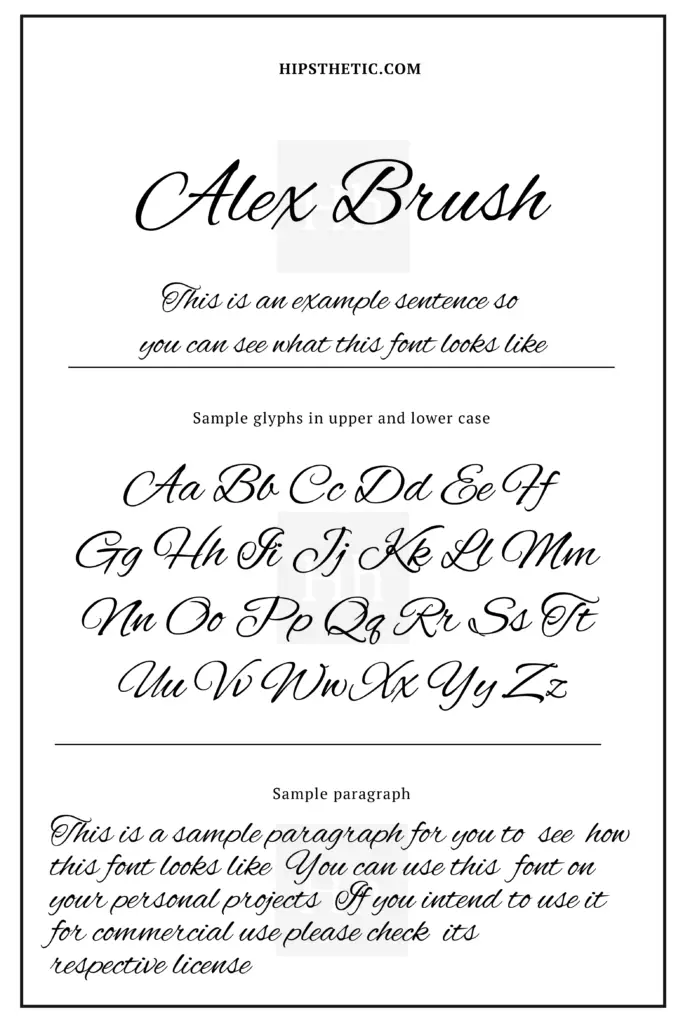
Balleria Calligraphy Font
This is the perfect font for that touch of classic elegance! The Balleria font perfectly captures the heavy and light strokes that you get from calligraphy fonts to add to that pleasing and charming aesthetic. Surely, this will make your invites stand out! Click here to download.
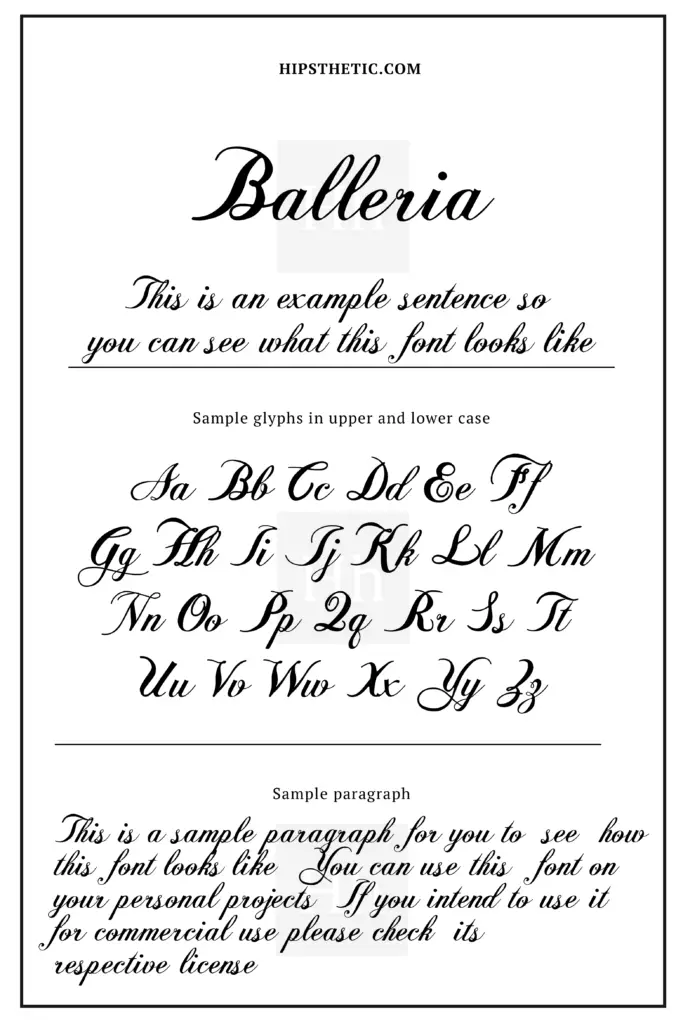
Notera Calligraphy Font
If you’re looking for something minimal yet formal, this font is for you! The Notera font captures that clean thin font vibe, that will surely work well with a minimalist invitation design. Add this font to your font library, and download it here!
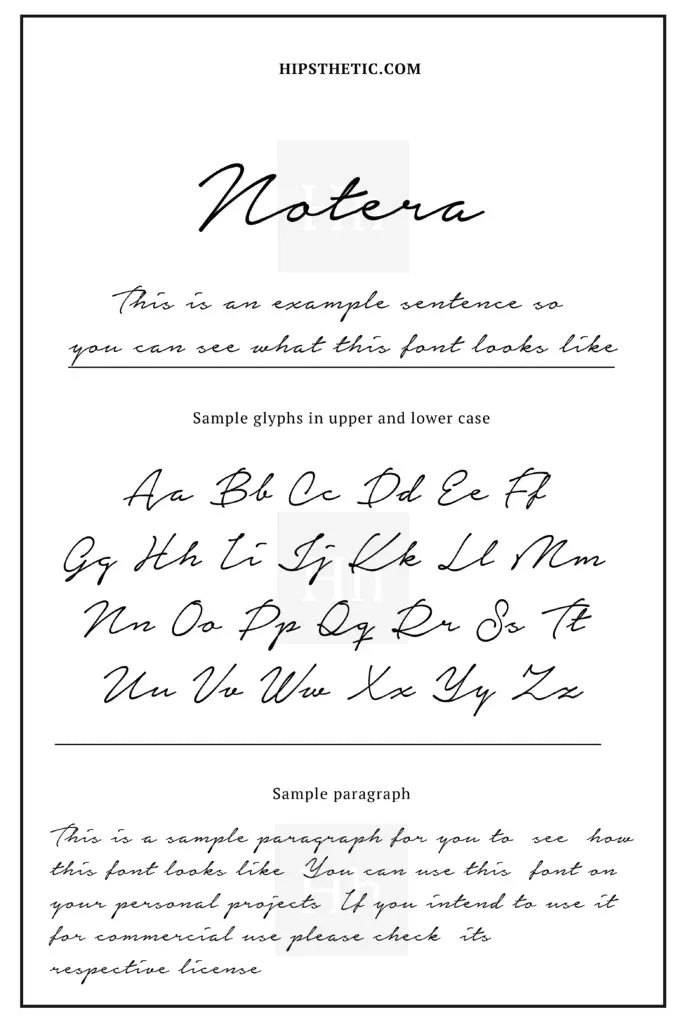
Camigata Calligraphy Font
Here’s another minimalist font with a handwriting touch. The Camigata font features a thin, cursive handwriting look. This font would be a great choice if you’re looking for something classy, formal, yet warm and homey. Truly, a great font to consider using on your invites. Click here to download it!
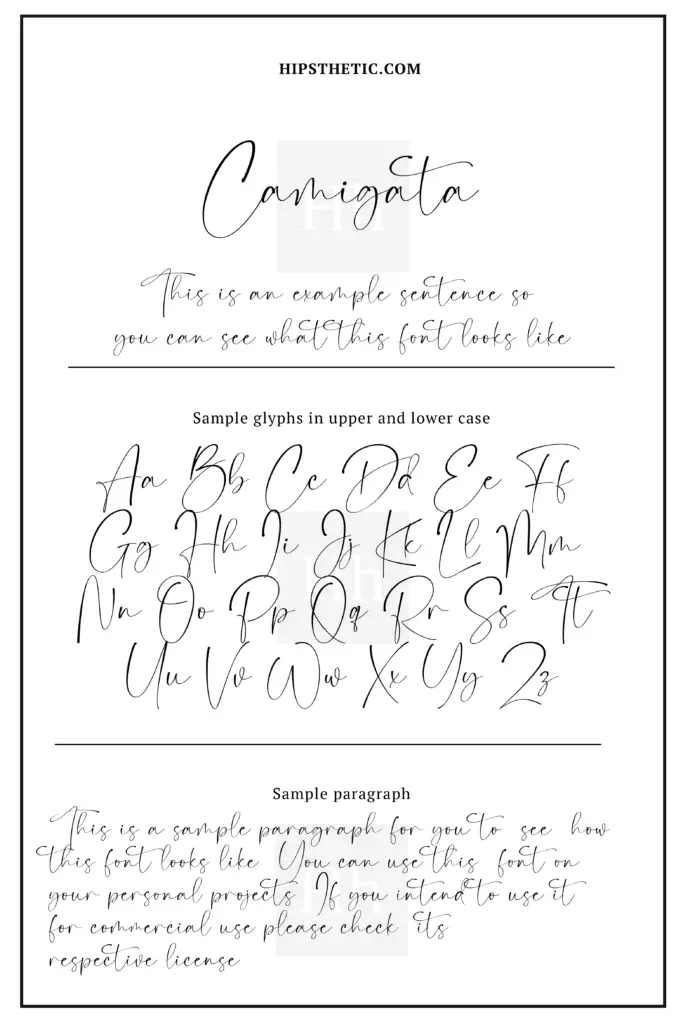
The Heart of Everything Calligraphy Font
We just adore this font so much! The Heart of Everything font captures that sweet romantic vibe that would be perfect for your wedding invites! The font features a nice cursive calligraphy font with big curves and straight edges for a tailored look. Try out and download this font here.
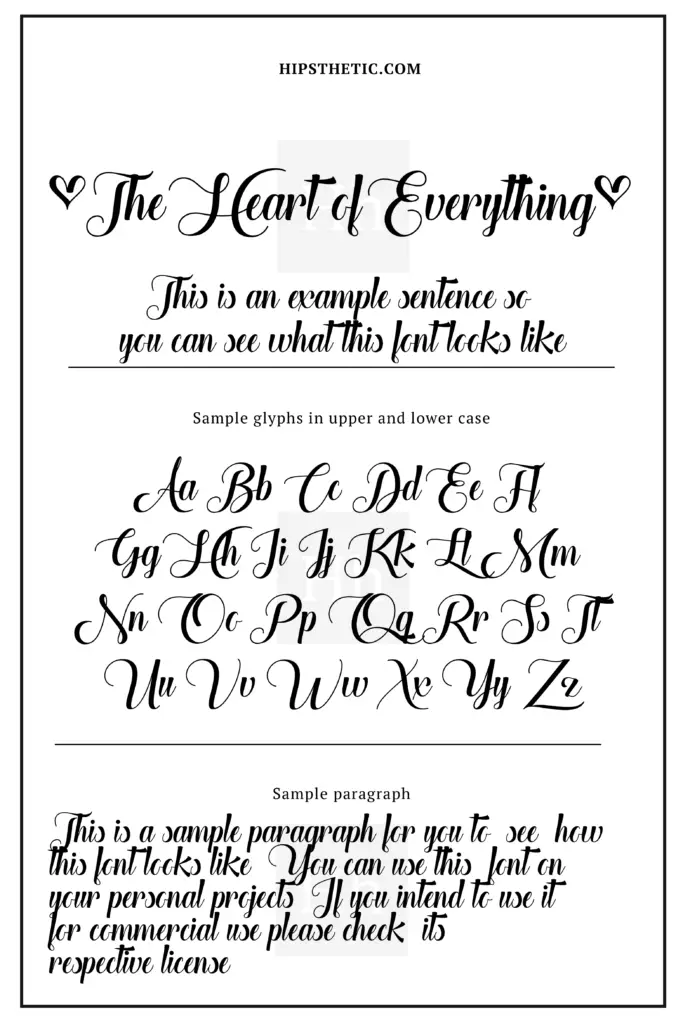
Ambar Pearl Calligraphy Font
We love how this cursive font’s overall look hints at touches of vintage classic elements. With its huge loops, small letters, and polished strokes, truly this font is a great choice for a wedding invitation. This font is a must in your font library. Download it here now!
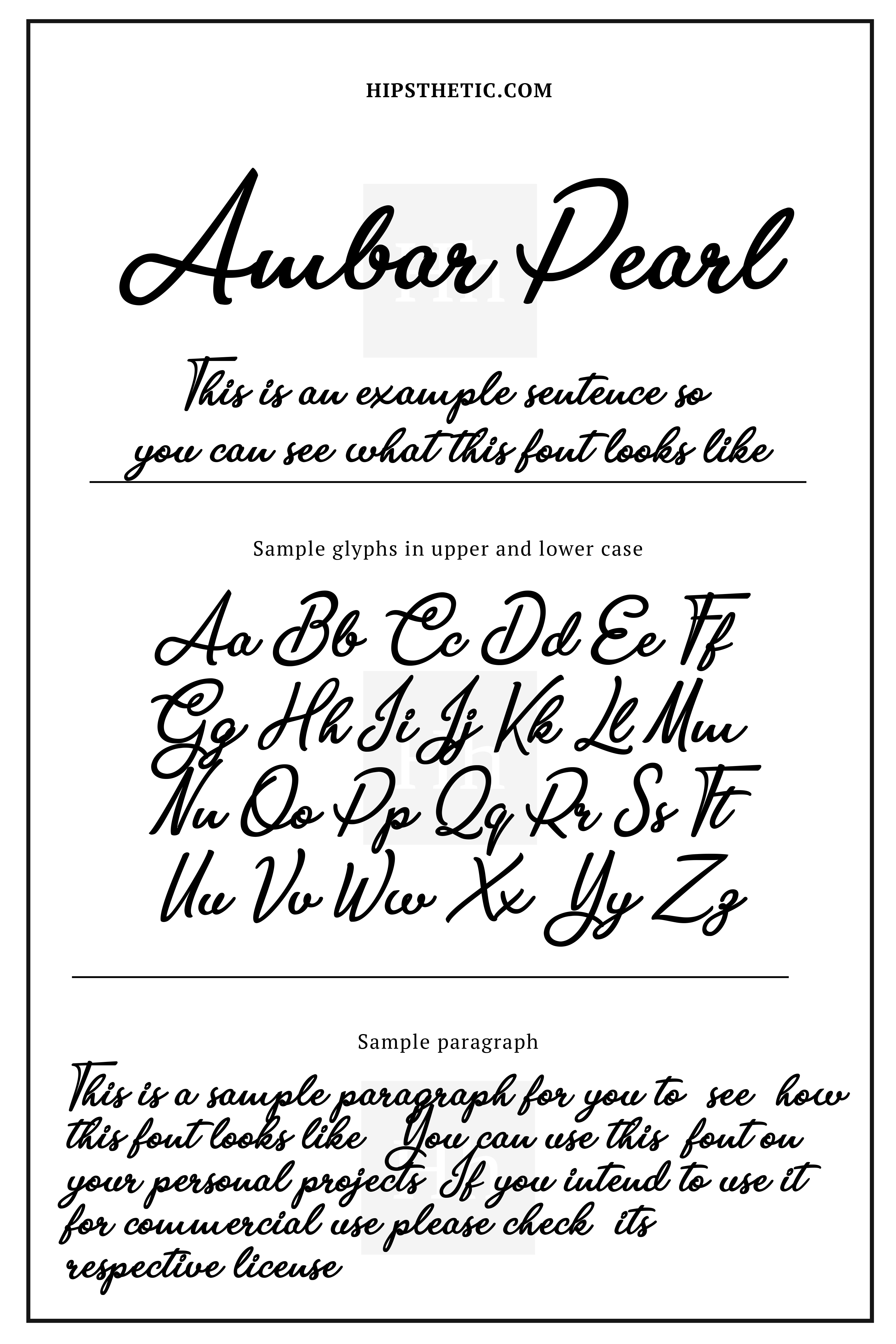
Great Vibes Calligraphy Font
Another one of those classic and sophisticated cursive calligraphy fonts that would work for formal and traditional wedding invites. This font features that bold look with a statement of elegance, truly a great choice for anyone seeking fonts for a formal event. Click here to download it!
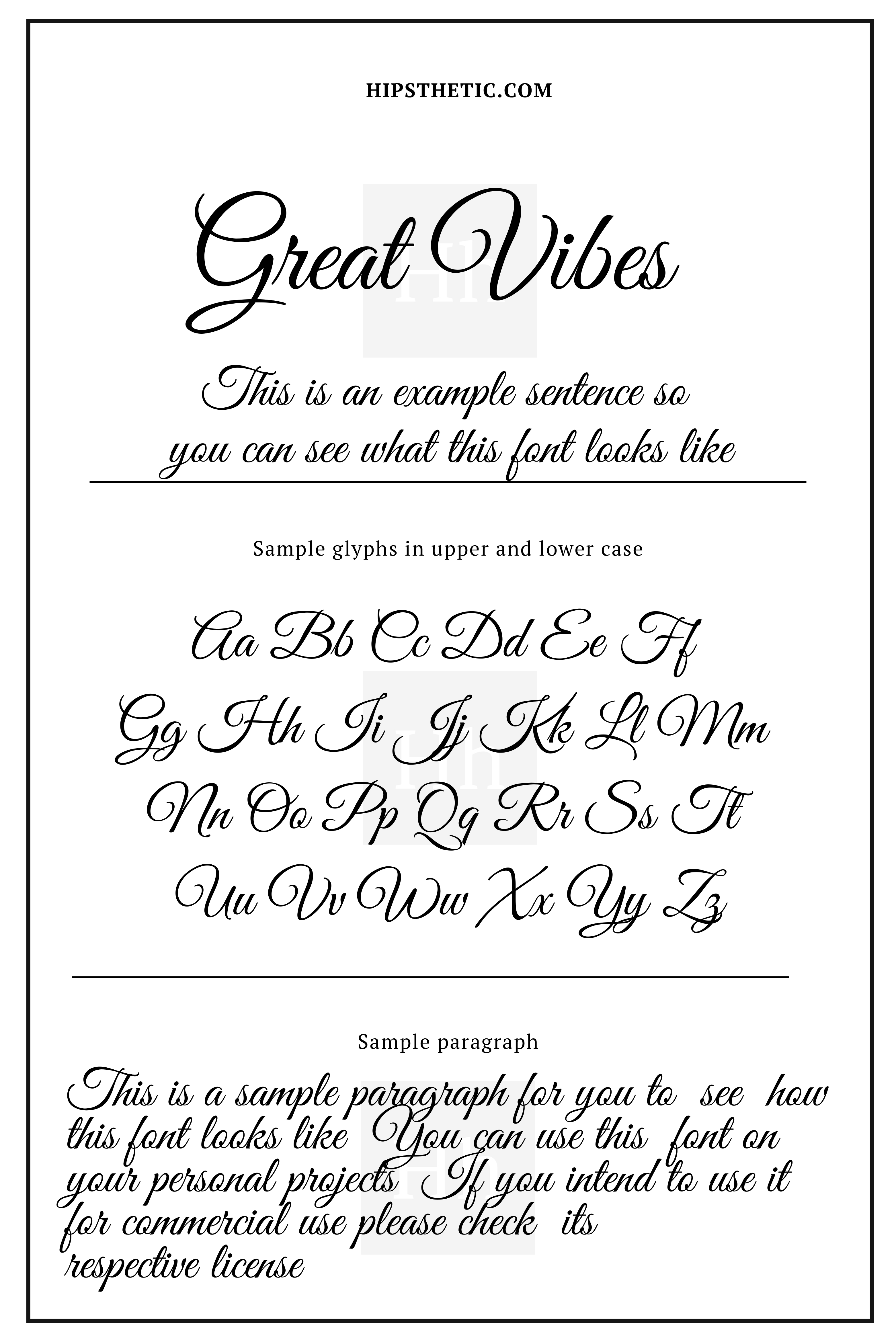
Yaquote Script Calligraphy Font
This cursive style font is perfect for any wedding invite with an elegant minimal style. The font features thin cursive italic characters and subtle curves. Truly this font is something to consider! Try out this font here.
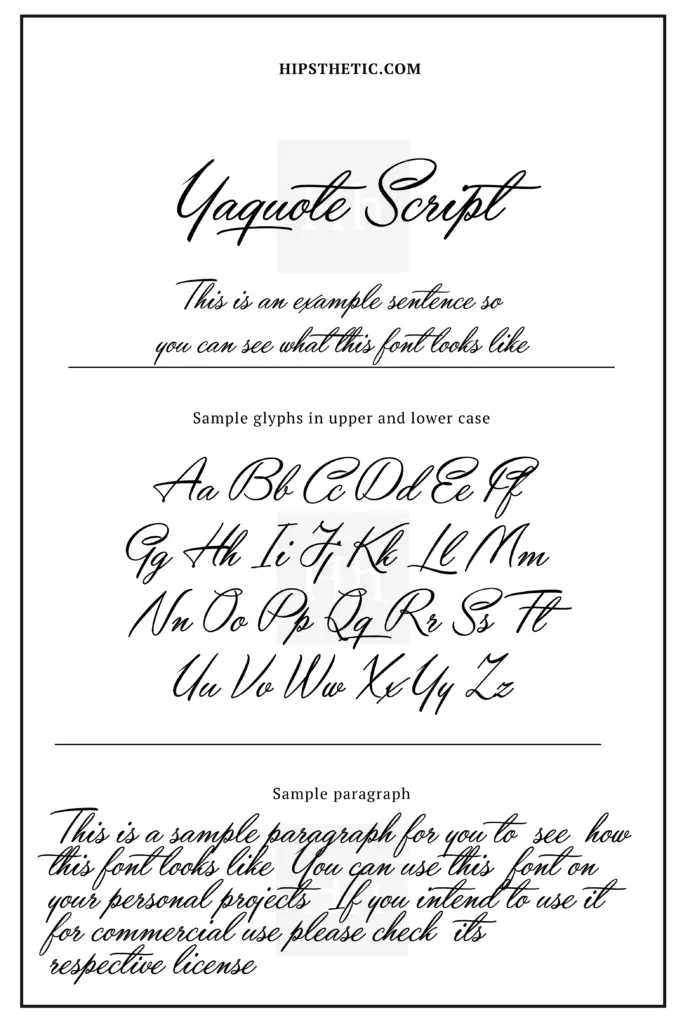
Arnette Script Calligraphy Font
If you’re looking for something vintage, tasteful yet a bit quirky? This is the perfect font for you! The Arnette Calligraphy font would perfectly match your classic vintage-themed invites, as it features elegant script-style characters with a touch of a quill pen handwriting. What are you waiting for? Download this font here!
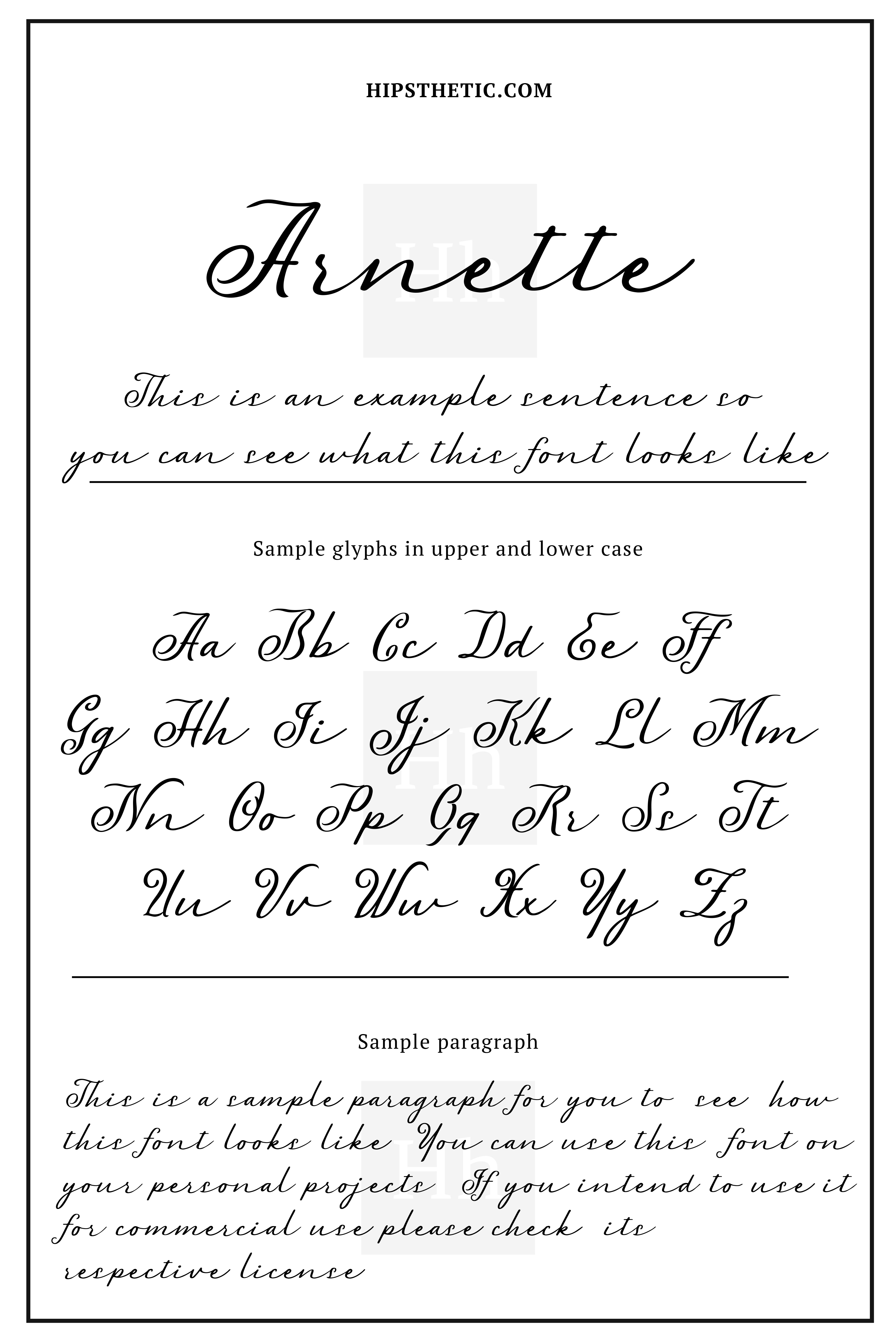
Miama Calligraphy Font
This font is based on real handwriting! If you’re looking for something with a mix of formal and casual, the Miama font is perfect for you! The font features certain curves and lines that complete that delicate and formal look. Try out this font here.
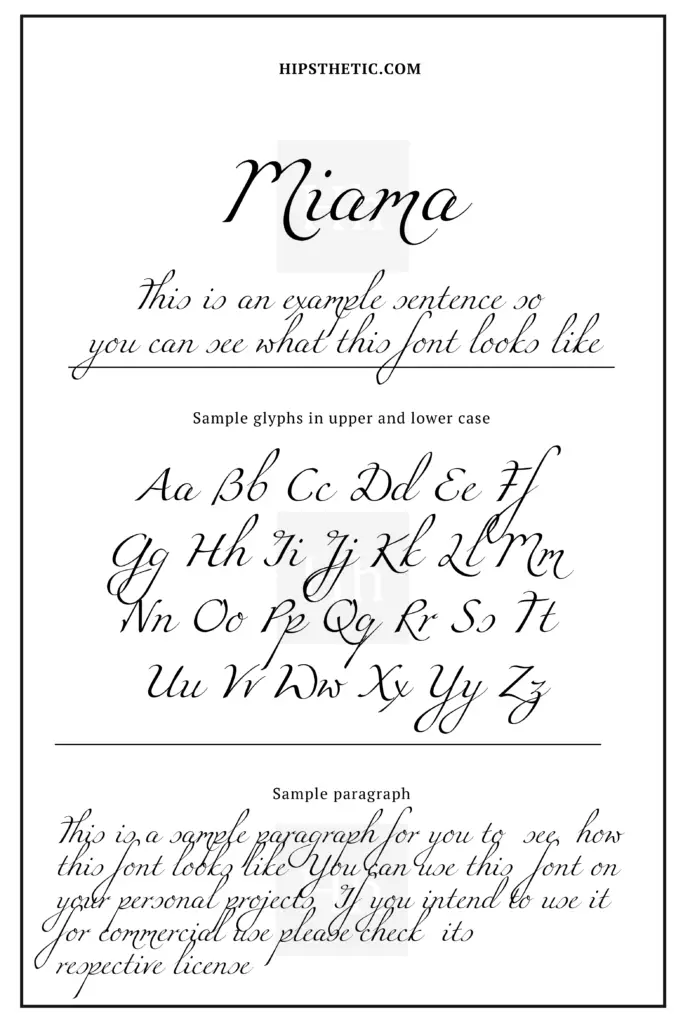
Other Calligraphy Fonts